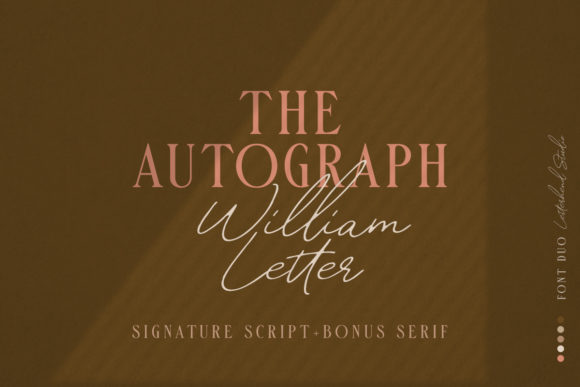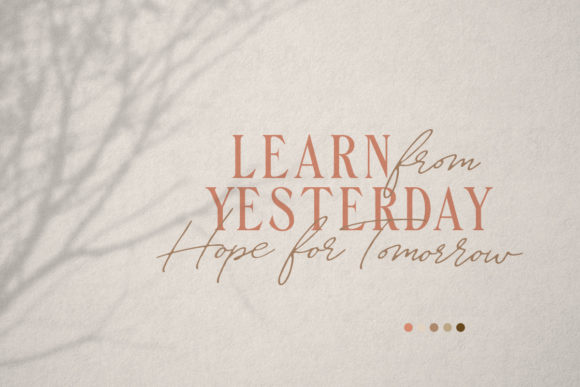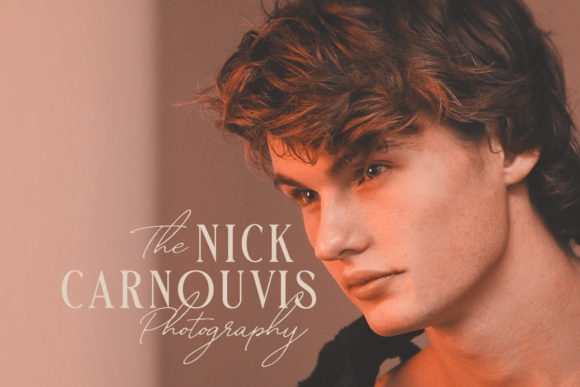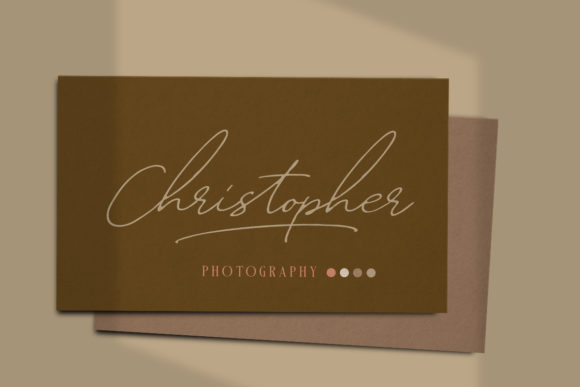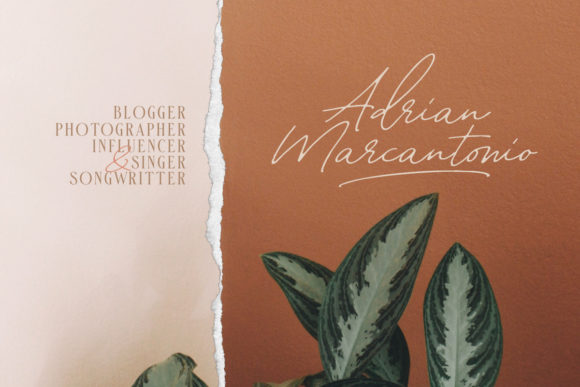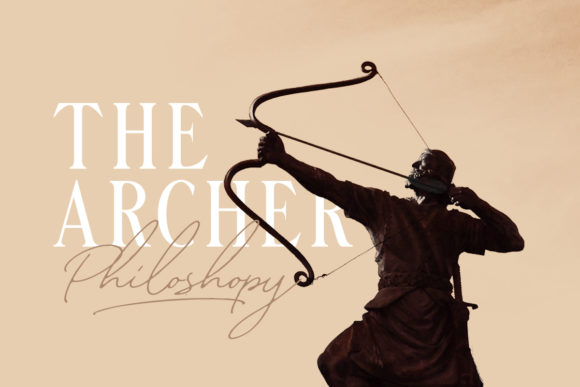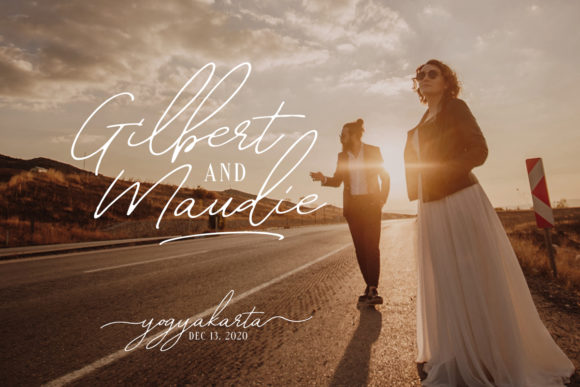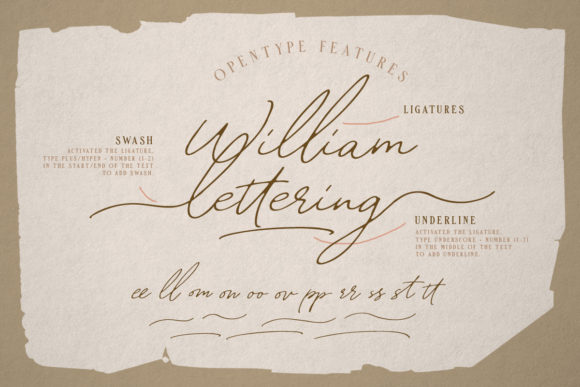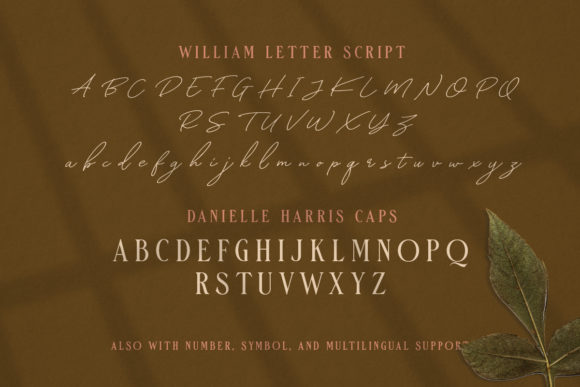
HomeScript FontsWilliam Font Script Fonts William Font FacebookXPinterestWhatsApp William Font Poster 2 William Font Poster 3 William Font Poster 4 William Font Poster 5 William Font Poster 6 William Font Poster 7 William Font Poster 8 William Font Poster 9 About William Font William is a strong, sophisticated and charming script with an editorial look and feel. DOWNLOAD NOW People also explored Bernandes Font Yummy Cheese Font Christmas Crafts Font Acroyear Chiken Font Downhill Font Khensin Font Special 4th of July Font Vioneka Font 323 0 TagsWilliam Font Previous articleJendella FontNext articleJordan River Font LEAVE A REPLY Cancel reply Comment: Please enter your comment! Name:* Please enter your name here Email:* You have entered an incorrect email address! Please enter your email address here Website: Save my name, email, and website in this browser for the next time I comment. Personal Use Free Squealer Personal Use Free Read more about this font Dear Monita Personal Use Free Read more about this font Hatia Script Personal Use Free Read more about this font The Quick Personal Use Free Read more about this font BLOG Best Fonts for T-Shirt Design – Top 2025 Picks In 2025, t-shirt design has become more than just fashion—it's a form of self-expression. Whether you're... Elegant Wedding Invitation Fonts – Handwritten & Script Fonts The 10 Best Handwriting Fonts to Add Personality to Your Designs Modern Sans-Serif Fonts That Brands Love in 2025